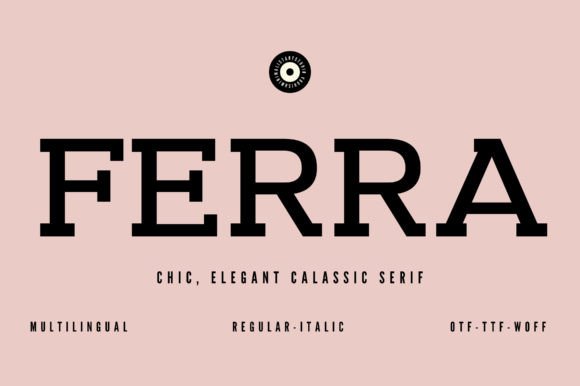
Introducing Ferra, the slab serif typeface that will transform your designs into breathtaking works of art. This exquisite font family embodies the essence of timeless aesthetics, seamlessly blending geometric precision with modern sensibility. Let your creativity soar as you witness the magic of Ferra unfold, elevating your projects to new heights of elegance and sophistication.
With Ferra as your creative companion, you'll embark on a journey of boundless possibilities. Craft logos that command attention, headlines that ignite curiosity, and editorial layouts that captivate readers. The versatility of this slab serif masterpiece knows no bounds, effortlessly adapting to any project you envision.
Unleash the power of Ferra's clean lines and minimalistic charm, leaving a lasting impression on your audience. Whether you're designing for print or digital, Ferra will elevate your work, making it stand out from the crowd. Its timeless beauty transcends trends, ensuring your designs remain relevant and captivating for years to come.
Step into the realm of design excellence with Ferra, the ultimate font family for those seeking a touch of sophistication and timeless appeal. Discover the boundless opportunities that await you as you unlock the secrets of Ferra, the font that will redefine your creative horizons.